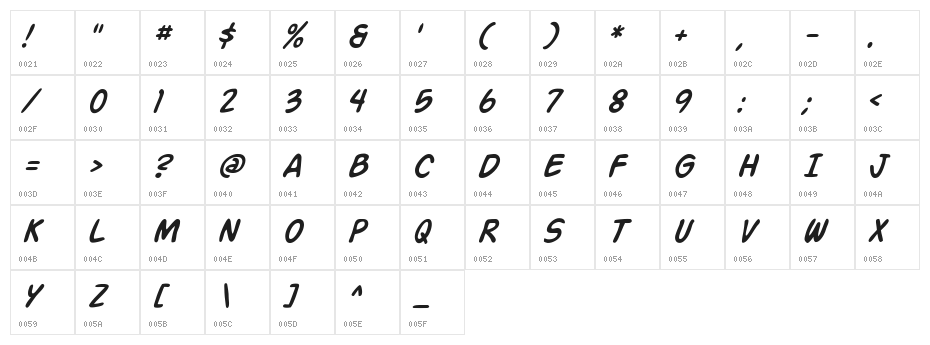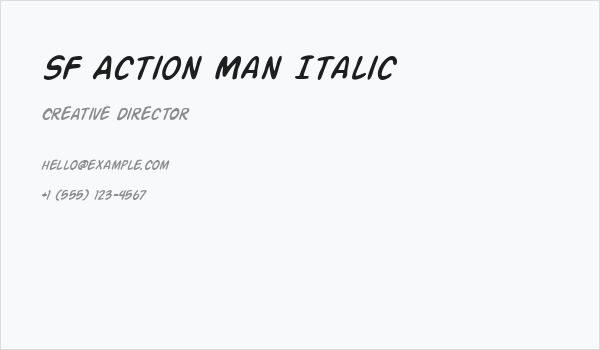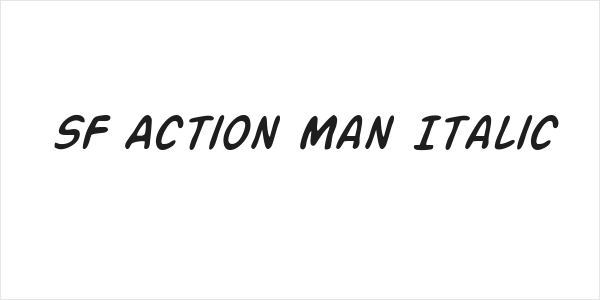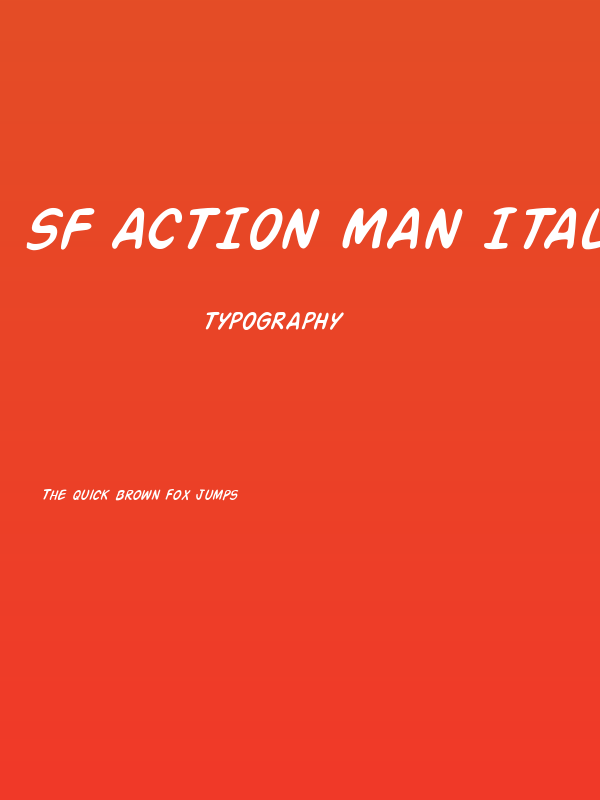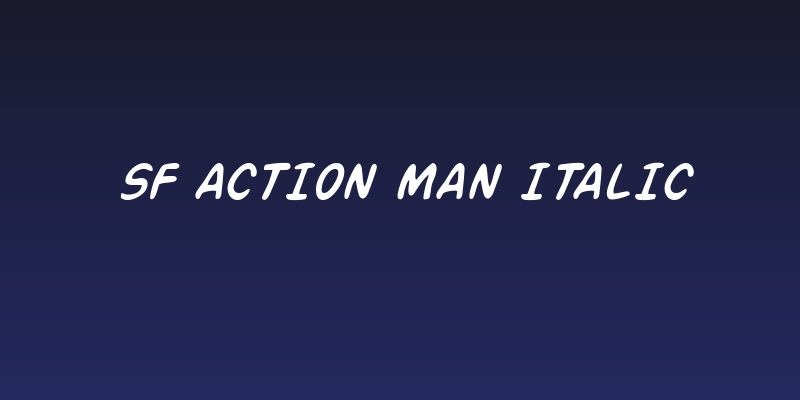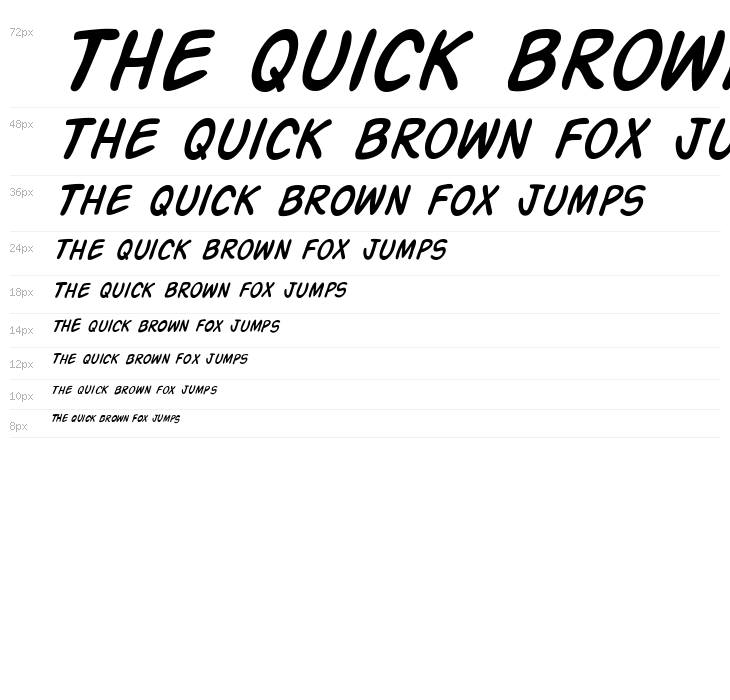
SF Action Man Italic Font
SF Action Man Italic Description
This font exudes a dynamic and energetic style, characterized by its italicized, handwritten appearance. The letters are slightly slanted, giving a sense of motion and fluidity. The strokes are bold and consistent, with a smooth, rounded finish that enhances readability while maintaining a casual, informal vibe. The numbers and special characters follow the same stylistic approach, ensuring uniformity across all elements. This font is ideal for projects that require a personal touch or a sense of urgency and action.
| Proposed Projects | Perfect for branding, advertising, posters, and any design needing a lively, personal touch. |